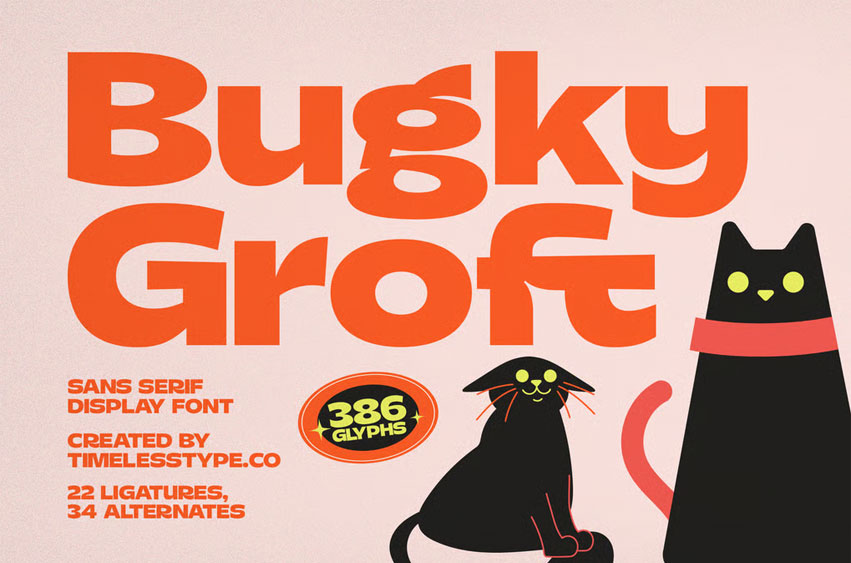
Bugky Groft Font
Bugky Groft Font is a playful bold sans serif display font with chunky shapes, friendly curves, and a retro-cartoon aesthetic. Designed to stand out instantly, this typeface blends fun personality with clean readability—perfect for eye-catching branding.
With 386 glyphs, 22 ligatures, and 34 alternates, Bugky Groft gives you flexibility to craft unique logos, packaging, children’s books, posters, social media graphics, café branding, and anything that needs a cheerful, expressive vibe. Every letter feels bold, warm, and full of character.
If you want a display font that looks modern but carries a nostalgic, illustrated feel, Bugky Groft hits that sweet spot.